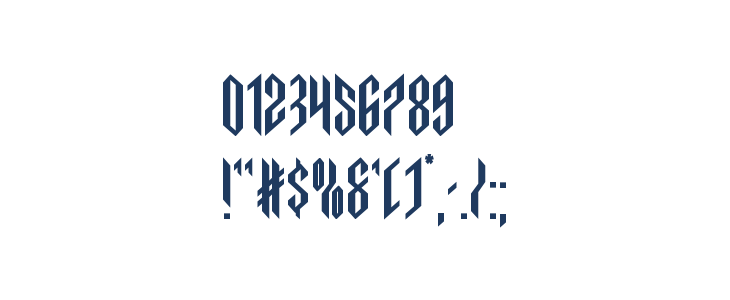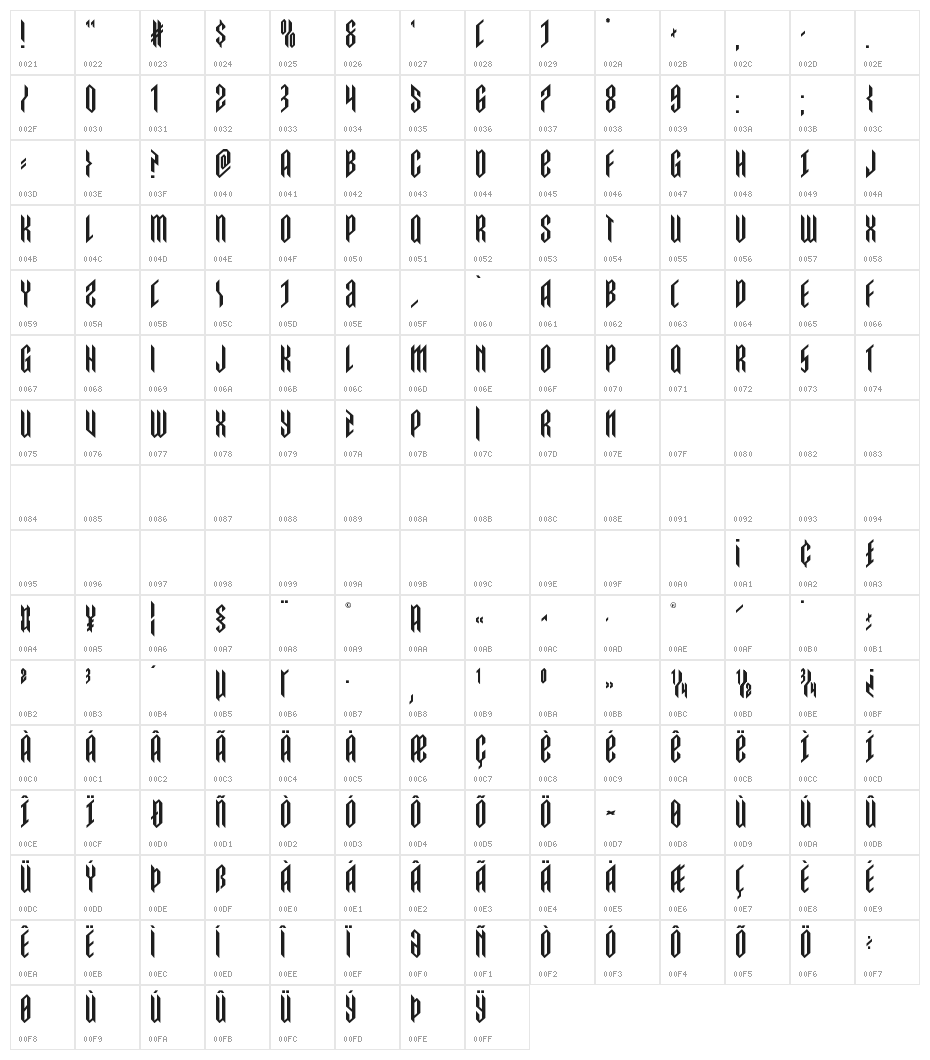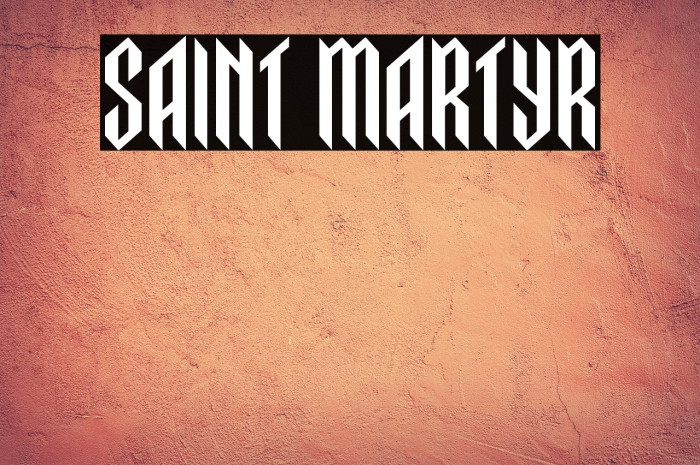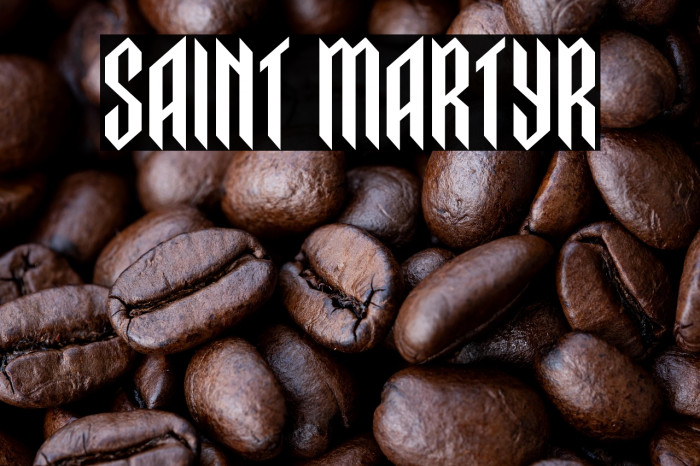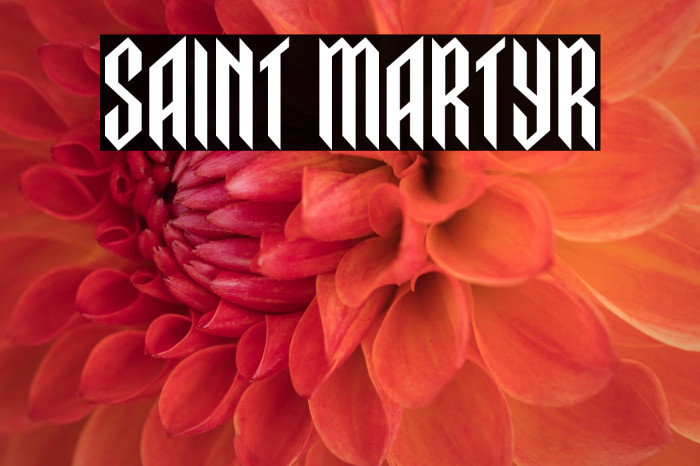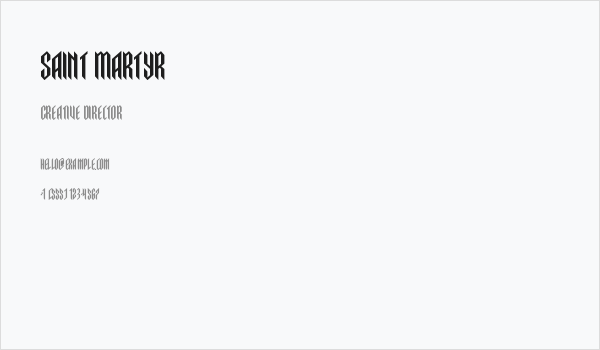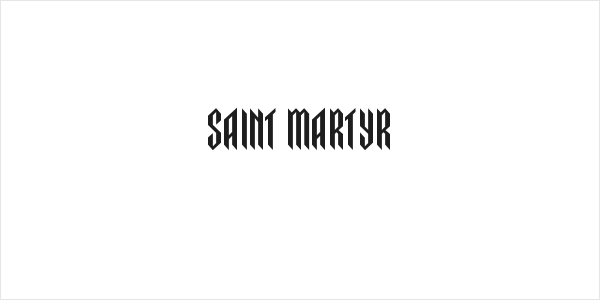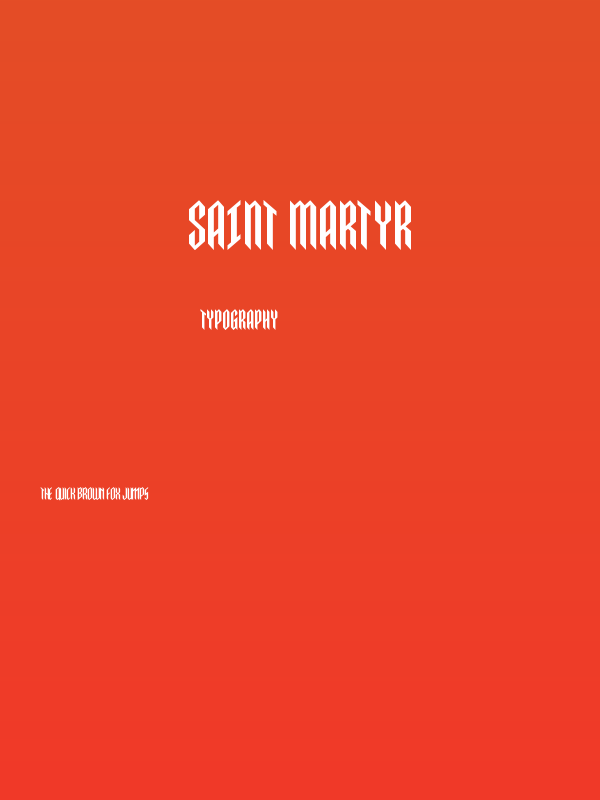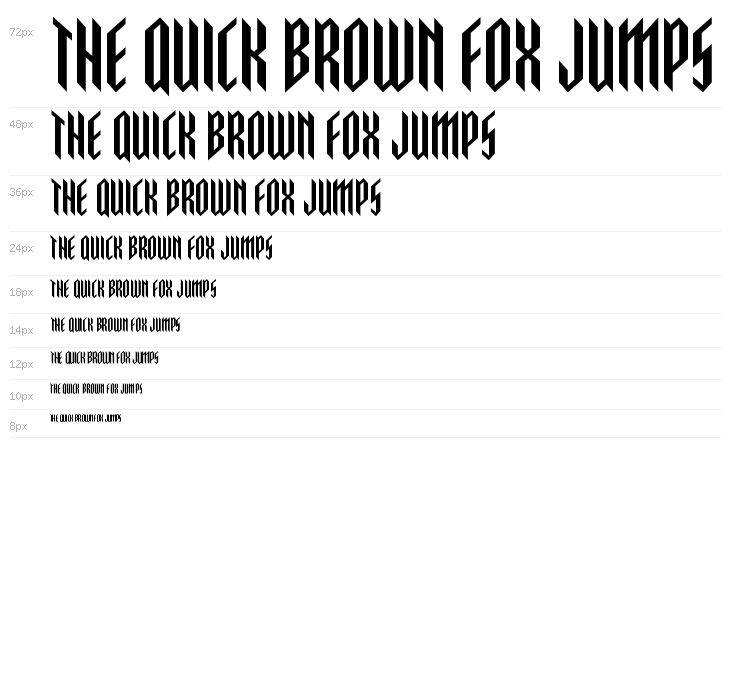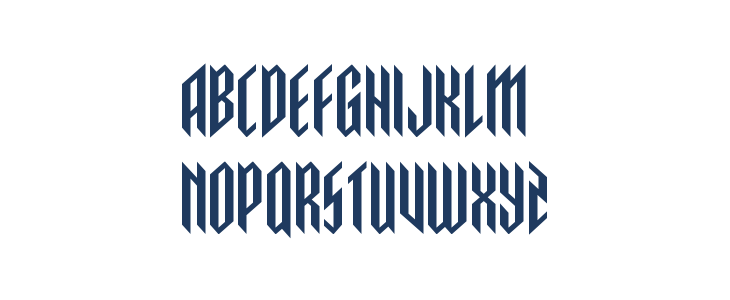
Saint Martyr Font
Saint Martyr Description
This font features a bold, angular design with sharp edges and a strong presence. The characters are tall and narrow, giving them a condensed appearance. The uppercase letters are particularly striking, with a gothic influence that adds a sense of drama and intensity. The numbers and special characters maintain the same bold style, ensuring consistency across all elements. This font's unique style makes it ideal for projects that require a strong visual impact.
| Overall Style | Gothic, Dramatic |
| Proposed Projects | Ideal for posters, album covers, branding, and any project needing a dramatic, impactful typeface. |